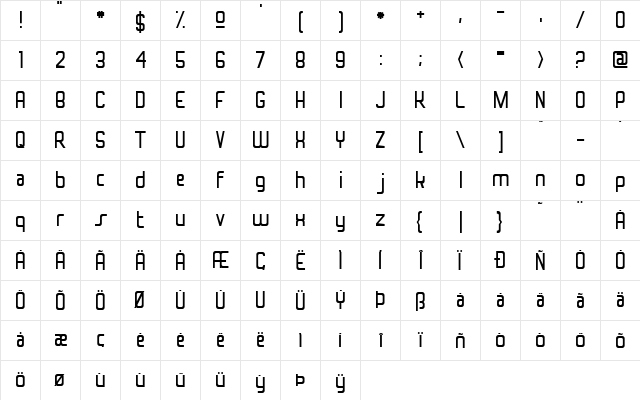
Superfly 2001 Normal Font Preview
Superfly 2001 Normal
Superfly 2001 Normal Font Details
Design Context for Superfly 2001 Typeface
Superfly 2001 takes a measured approach to typography — its balanced proportions and neutral character make it a reliable workhorse for both digital and print work.